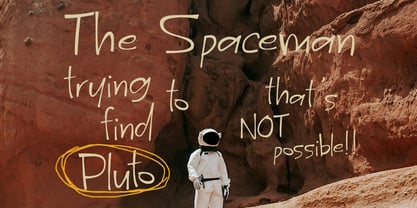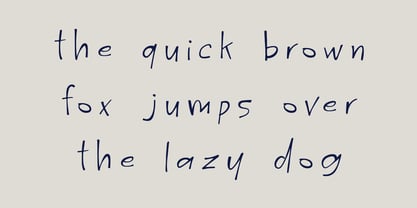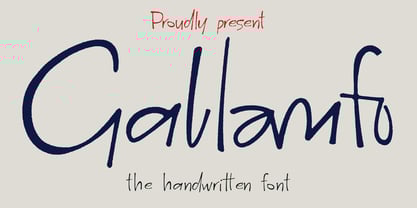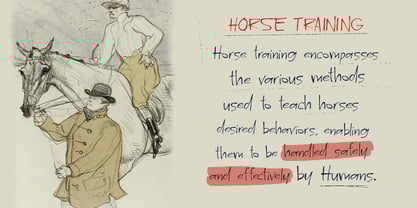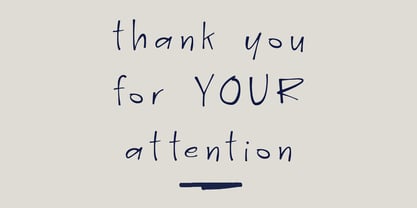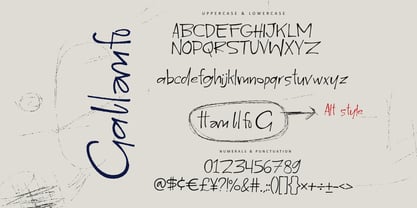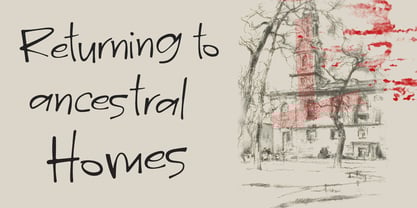
MC Gallamfo
by Maulana Creative
The MC Gallamfo Font Family was designed by Gilang Maulana and published by Maulana Creative. MC Gallamfo contains 1 styles. More about this family
Give your designs an authentic handcrafted feel. “Gallamfo Handwritten Brush Font” is perfectly suited to stationery, logos and much more. Include alternative character and ligature characters.
Designers: Gilang Maulana
Foundry: Maulana Creative